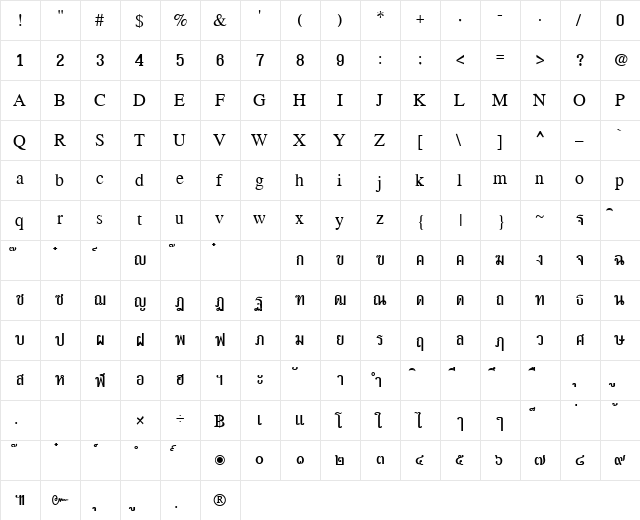
PSL-ThaiCommon Regular
Design Context for PSL-ThaiCommon Typeface
PSL-ThaiCommon takes a measured approach to typography — its balanced proportions and neutral character make it a reliable workhorse for both digital and print work.